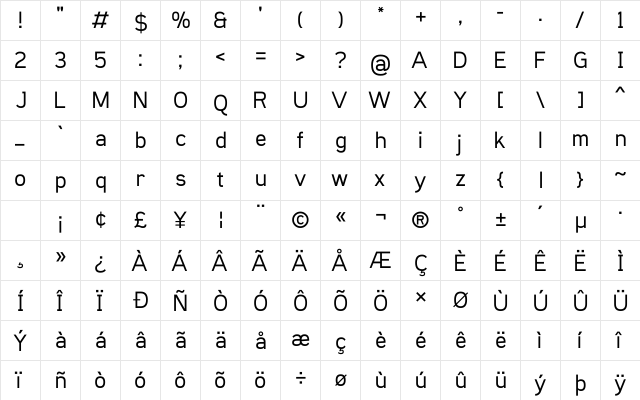
Sanitrixie Regular
| Designer | Jayvee D. Enaguas (Grand Chaos) |
Design Context for Sanitrixie Typeface
Sanitrixie takes a measured approach to typography — its balanced proportions and neutral character make it a reliable workhorse for both digital and print work.